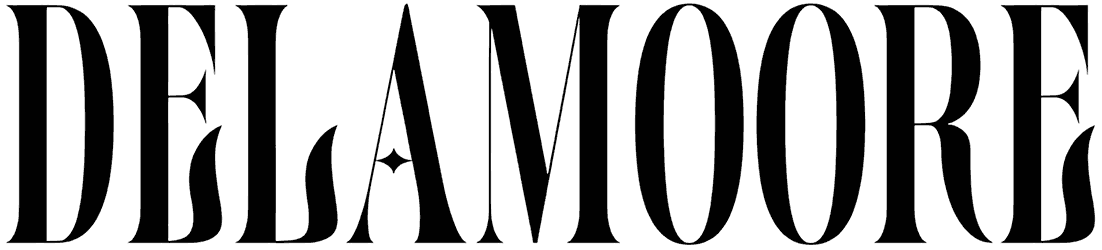
Delamoore Font
Delamoore is an American classic font that you can utilize for one luxury typography! It offers strong, elegant characters that convey a vintage classical feel for a trustworthy design that looks stunning. It offers fashionable letterforms, but lower-case alphabets and a full set of numbers are not available for Delamoore.
Book covers, magazines, headlines, weddings, as well as fashion products, are a few places you might fancy adding this serif font, for one professional typography that looks well established.